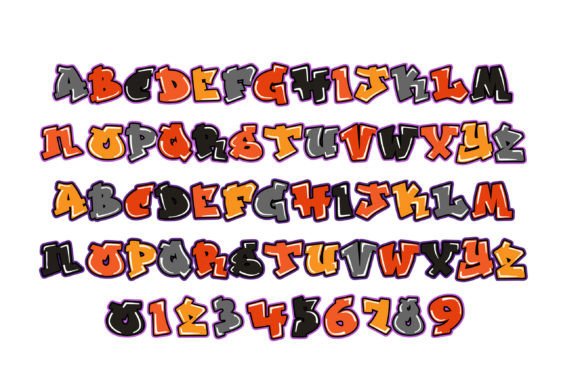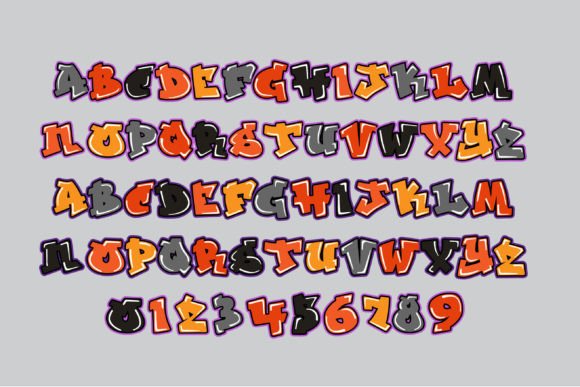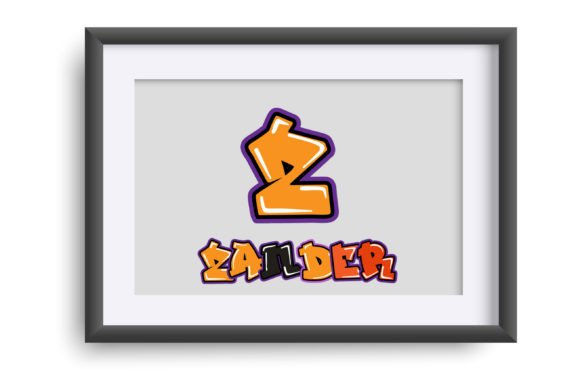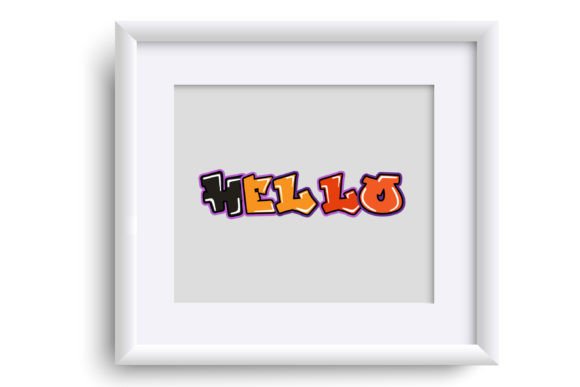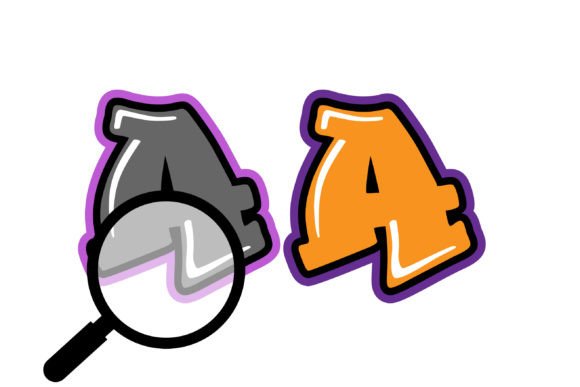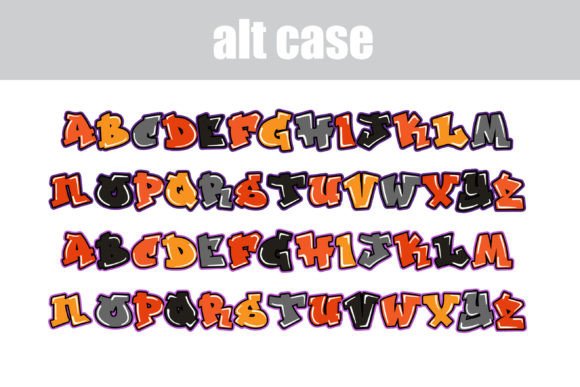
Introduction to Hip Halloween Font Font
Fonts play a crucial role in design, and the Hip Halloween Font font is a typeface that brings both character and versatility to any project. Whether you’re working on a branding project, a website, or a print design, the Hip Halloween Font font offers a unique style that can elevate your work.
This full-color font features a graffiti like font filled with a Halloween color palette.
There are a number of fun ligatures like what is seen in sample (At, Al) OpenType full-color (SVG) fonts are installed like any normal .
Key Features of Hip Halloween Font Font
Why Choose Hip Halloween Font Font?
The Hip Halloween Font font is more than just a typeface – it’s a design tool that helps you communicate your message with style and clarity. Its unique character set and versatile design make it suitable for a wide range of applications, from elegant invitations to bold headlines.
With its carefully crafted letterforms and balanced proportions, the Hip Halloween Font font ensures readability and visual appeal across all mediums.
What makes Hip Halloween Font font special?
The Hip Halloween Font font stands out with its unique design, exceptional readability, and versatility across various design applications.